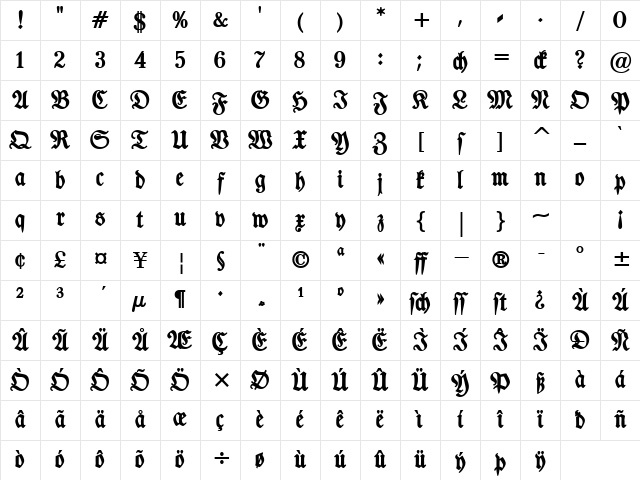
TypographerFraktur Bold Free Font
TypographerFraktur Bold
Designer: Dieter Steffmann
Design Context for TypographerFraktur
TypographerFraktur draws on the rich tradition of blackletter calligraphy, with dense, angular strokes that evoke medieval manuscripts and old-world craftsmanship. Its bold stroke weight gives it real presence on the page.
Font Pairing: Pair with a clean neutral sans-serif for body copy to let TypographerFraktur's character lead without overwhelming the composition.
Pro Tip: Reserve TypographerFraktur for display and logo use - pair it with a clean sans-serif for body copy to prevent the composition from feeling oppressive.